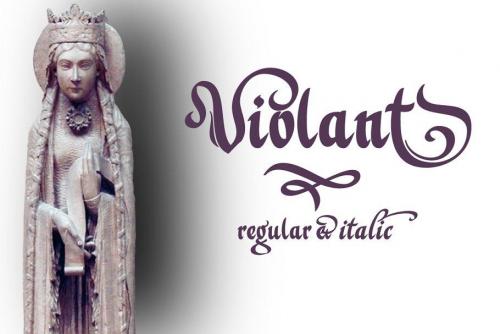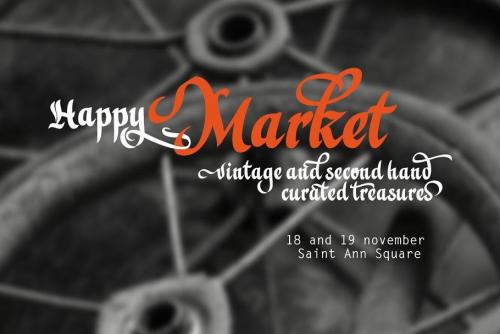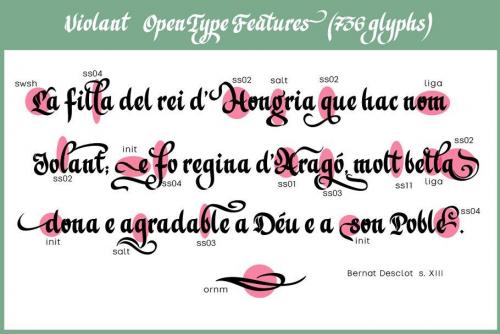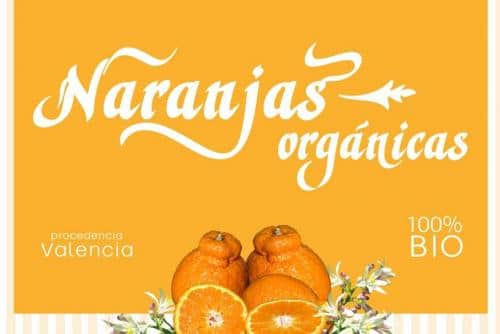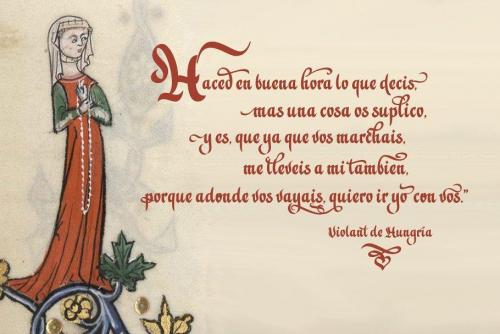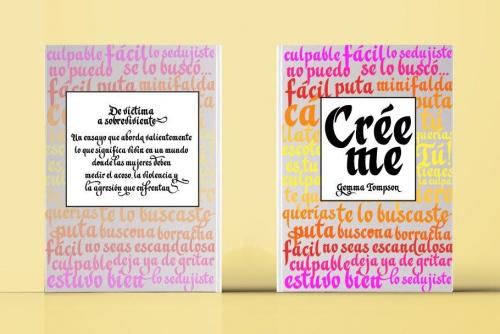
Violant fonts are designed as a tribute to Queen Violant, wife of Jaume 1st, king of Aragon, a woman of strong character, who supported her husband in the conquest of Valencia in 1238.
Probably, Violant read texts in Gothic letters, which at that time were subjected to a stylization process in Castile and Aragon.
Violant family comes with 736 glyphs, with OpenType features, swashes for all glyphs, stylistics sets, stylistics alternates, a lot of ligatures and a generous set of ornaments to play with your texts.